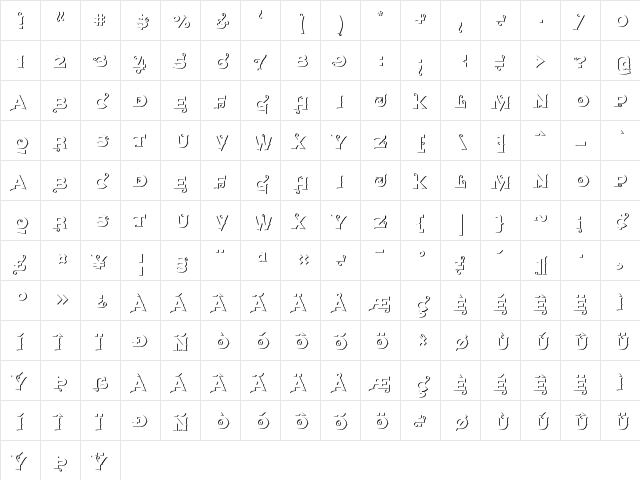
AgreloyOut1 Medium Font Preview
AgreloyOut1 Medium
AgreloyOut1 Medium Font Details
| Foundry | gluk |
| Designer | gluk |
Design Context for AgreloyOut1 Typeface
AgreloyOut1 is a composed and adaptable typeface that performs quietly and consistently across a wide range of design contexts.